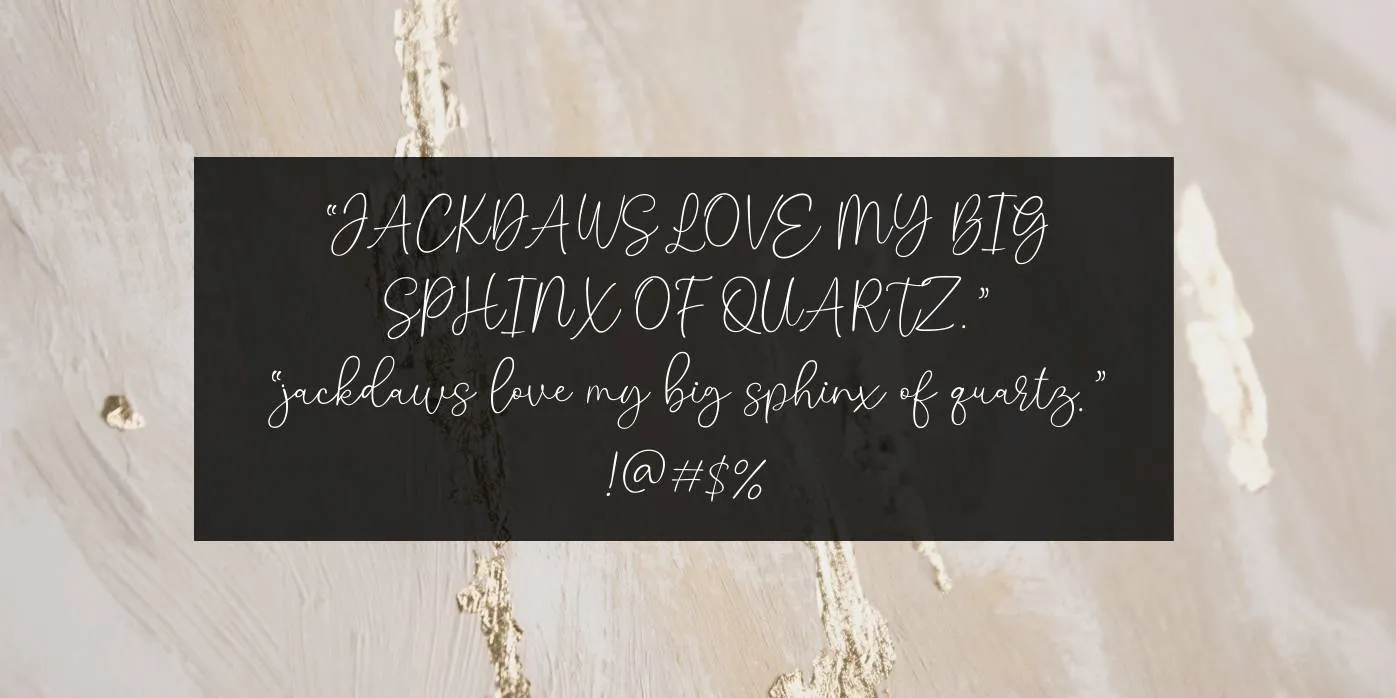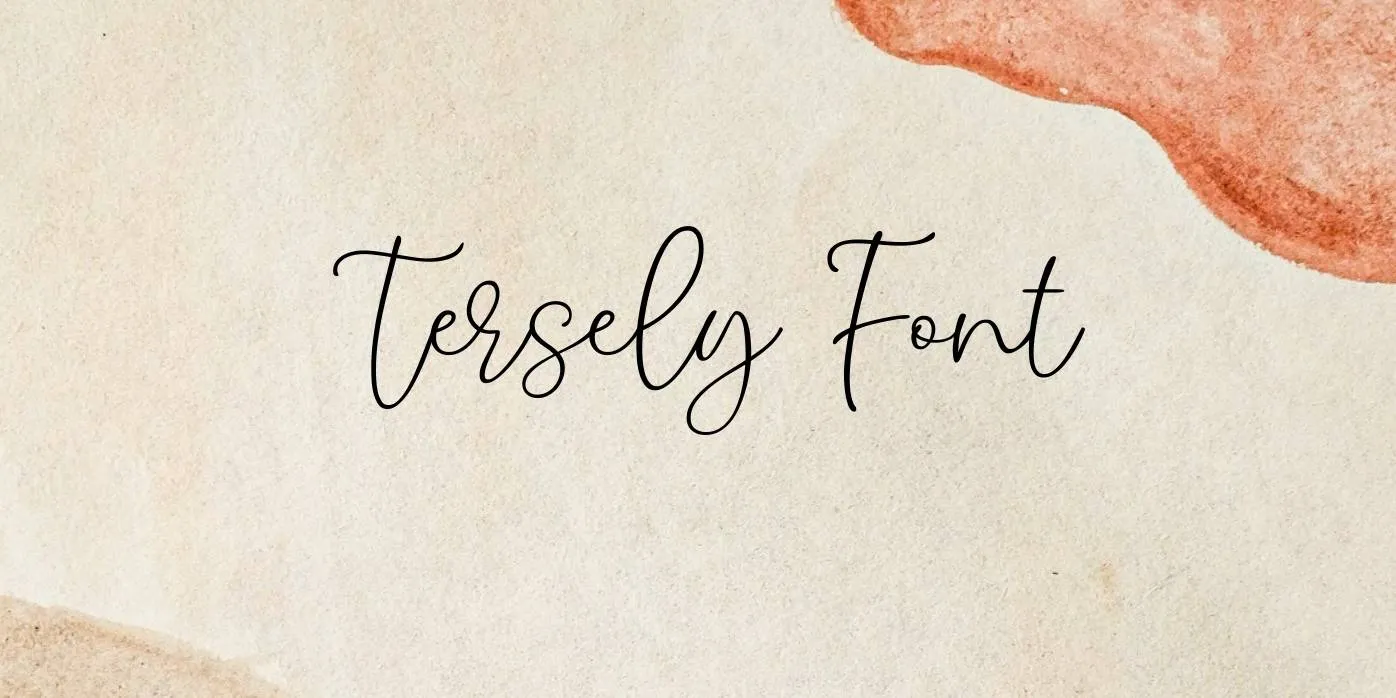
Tersely Font
Today, we present a very marvelous typeface named Tersely Font. This classy font belongs to the Calligraphy typeface. This family was created by nhfonts. This typeface includes styles such as Regular, Swashes, and Ornament.
This font has a very high level of readability because of its cleanliness. This typeface is perfect for branding, invitations, headers, web layouts, and any other creative projects. The swashes and ornaments give this font an elegant touch. You can access all of the alternate characters by using OpenType savvy programs such as Adobe Illustrator and Adobe InDesign.